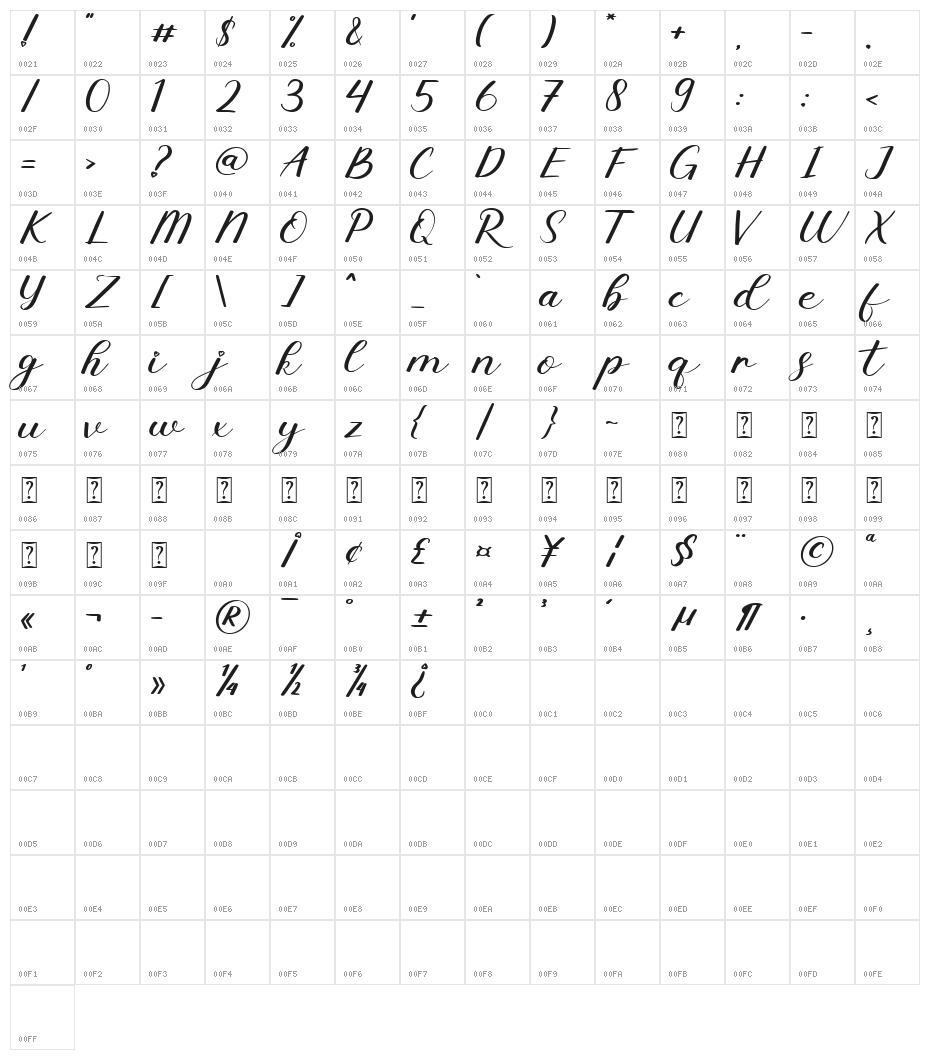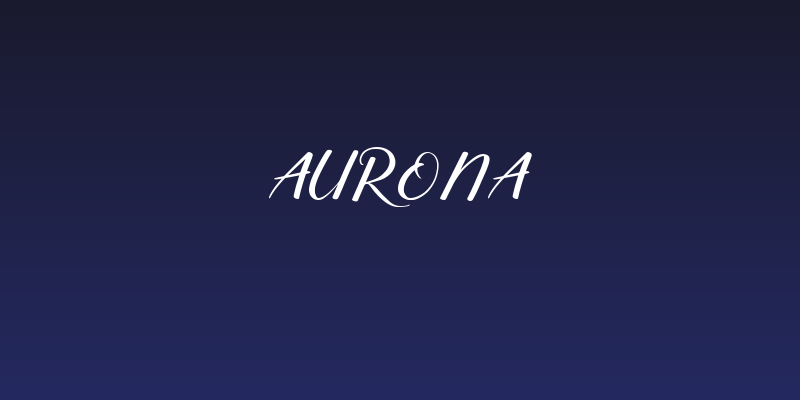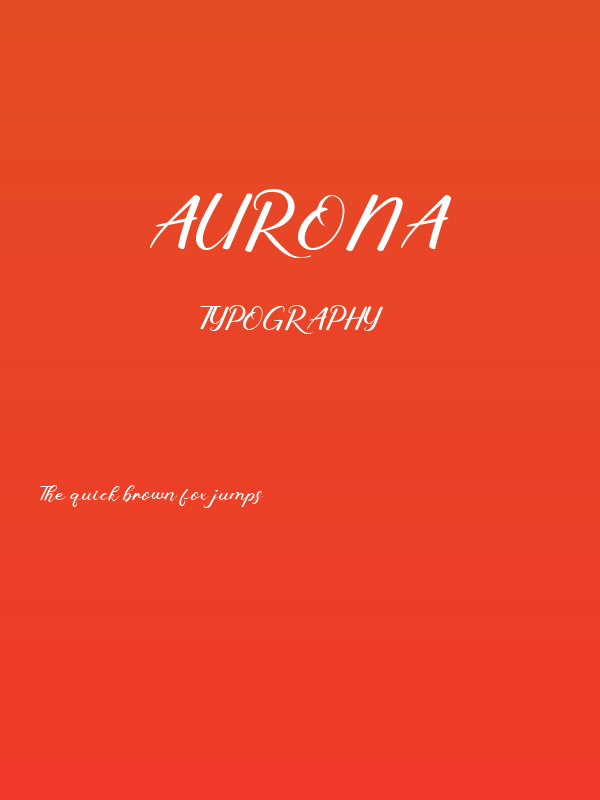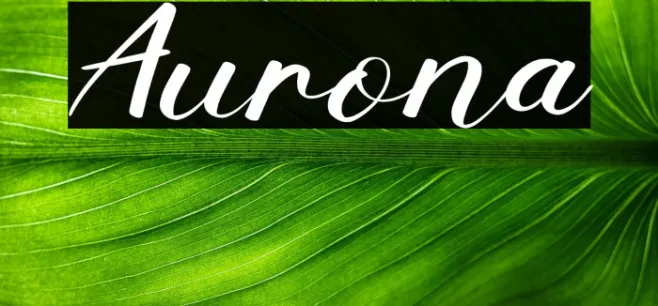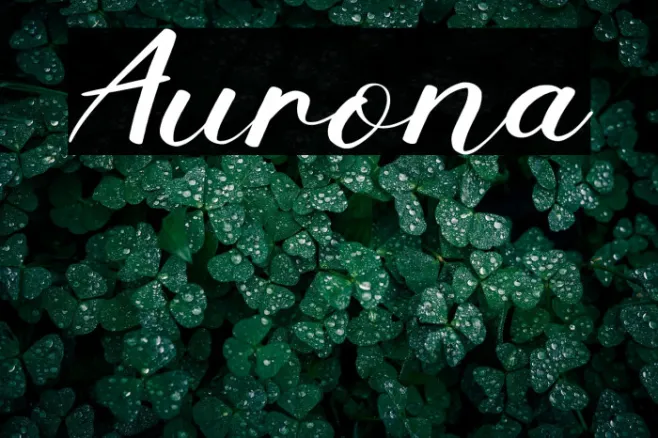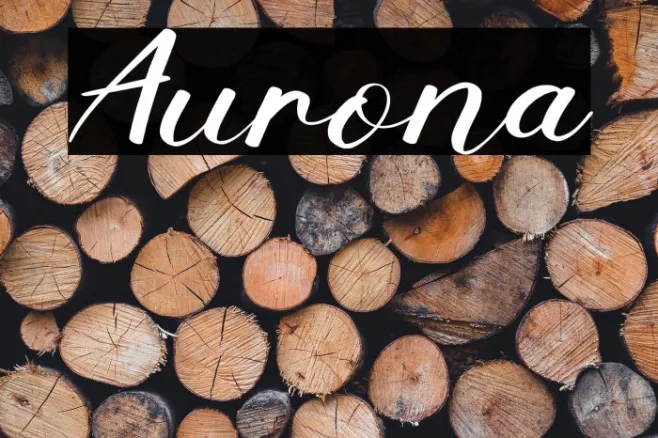
Aurona Font
Aurona Description
This elegant script font features a flowing, cursive style with a modern twist. The uppercase letters are slightly slanted, with smooth curves and a sophisticated flair, while the lowercase letters maintain a consistent rhythm and balance. The font includes unique heart-shaped accents on certain letters, adding a playful and romantic touch. The numerals are designed with a similar fluidity, ensuring a cohesive look across all characters. Special characters are thoughtfully integrated, maintaining the overall aesthetic. This font is perfect for projects that require a personal, handwritten feel, such as invitations, greeting cards, and branding materials.